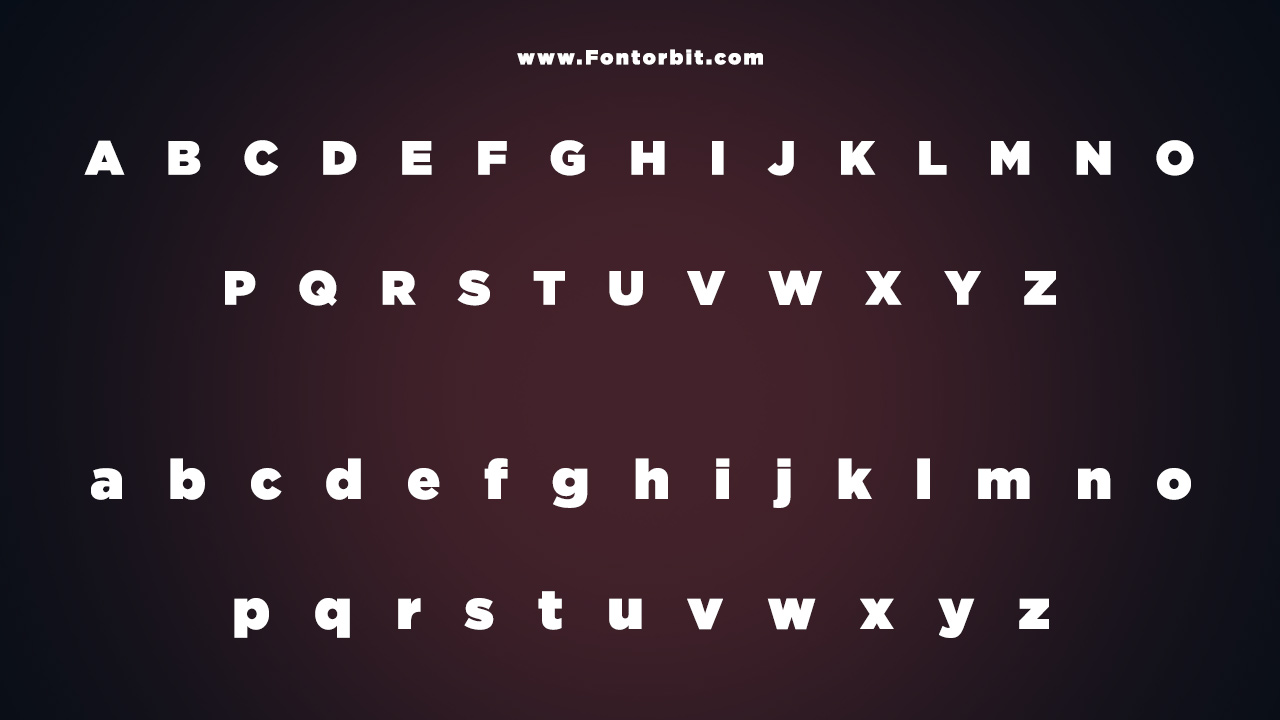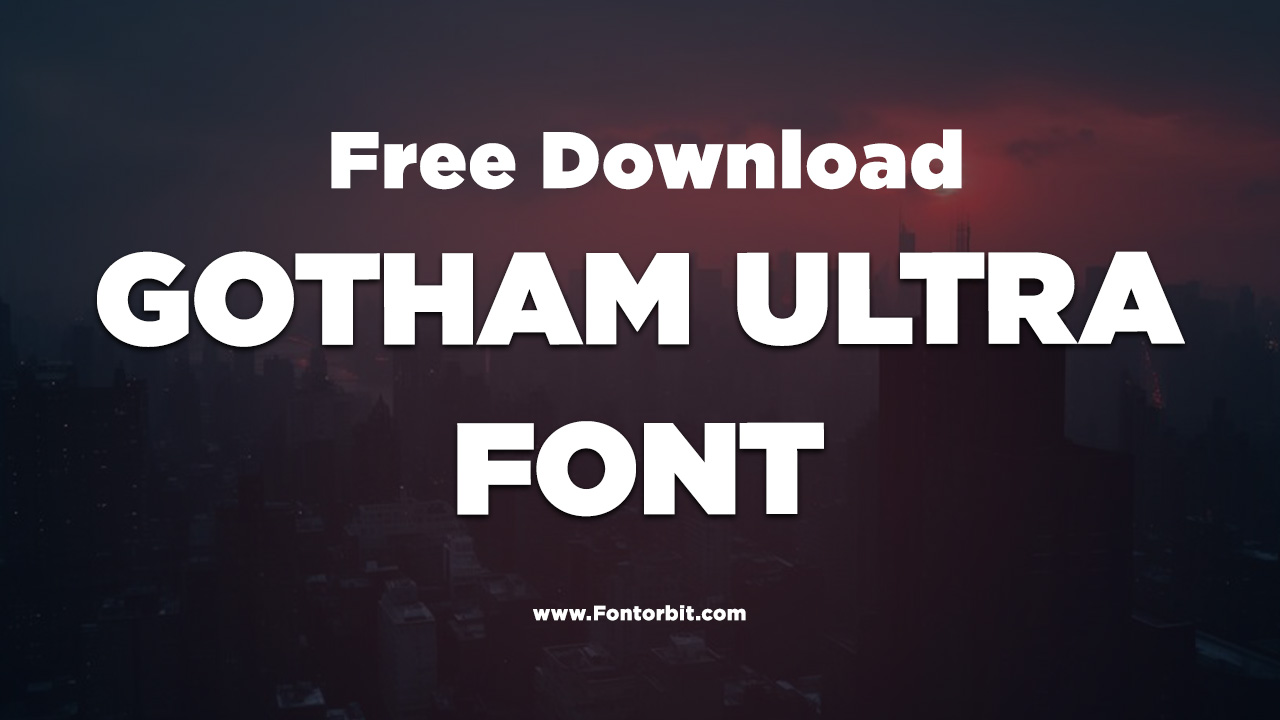
The Gotham Ultra font, designed by Tobias Frere-Jones and published by Hoefler & Co. in 2000, is part of the popular Gotham font family.
Its clean and modern look has made it a favourite for many designers seeking a bold and elegant typeface. The font family offers versatility, with weights ranging from ultra-thin to ultra-bold, allowing it to adapt to various design needs.
Gotham Ultra Family Includes
The Gotham font family includes a range of weights and styles, making it a comprehensive toolkit for any design. Gotham Ultra stands out for its heavy, bold presence, often used to make strong statements in print and digital media.
Notable Uses Of Gotham Ultra
Gotham Ultra has been used in many iconic settings. Most notably, it was featured in Barack Obama’s 2008 presidential campaign, giving a sense of strength and forward-thinking optimism. It has also been used in corporate branding, magazine titles, and film posters.
- It is widely used in brand projects and logos for different companies.
- Frequently utilized in advertising for brand products and promotional materials.
- Commonly applied in logos, presentations, layouts, headlines, and homeware designs.
- Popular for book covers, magazines, and T-shirt designs.
- Eye-catching for social media graphics and digital designs.
- Often employed in web design, blogging, and video game interfaces.
- Frequently seen in newspapers, banners, posters, and labels.
1.What Is The Best Use Case For Gotham Ultra?
It’s best used for headlines, branding, and bold design statements.
3.Is Gotham Ultra Suitable For Small Text?
Due to its weight, it’s not recommended for small text sizes.
4.What Font Is Closest To Gotham Ultra?
Montserrat Bold and Oswald Heavy closely resemble Gotham Ultra.
8.What Makes Gotham Ultra Unique?
Its bold, modern, and highly legible style makes it a standout choice.